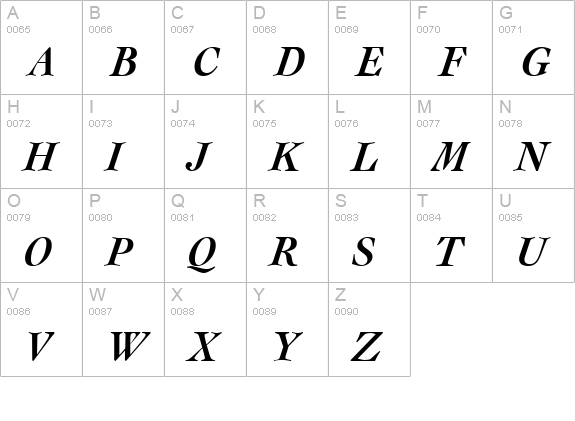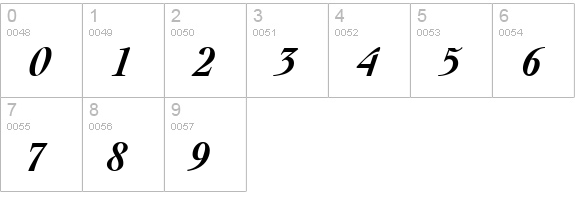
Collage Bold Italic Font Details
Collage Bold Italic is a strong, high-contrast, italic variant in the Collage typeface family \xE2\x80\x94 well suited to headlines, attention-grabbing titles, and strong calls-to-action.
Introducing Collage Bold Italic font, a captivating and dynamic typeface perfect for making a bold statement in your design projects. This unique font combines a modern aesthetic with a touch of artistic flair, making it ideal for eye-catching headers, branding materials, and more. The bold, italicized characters exude confidence and style, adding a contemporary edge to any design. What's even better is that Collage Bold Italic font is available for free download at FontsMarket.com. Now you can elevate your designs without breaking the bank, thanks to this freely accessible font. Don't miss out on the opportunity to add a touch of sophistication and creativity to your projects with Collage Bold Italic font. Download it today and unleash your creativity!